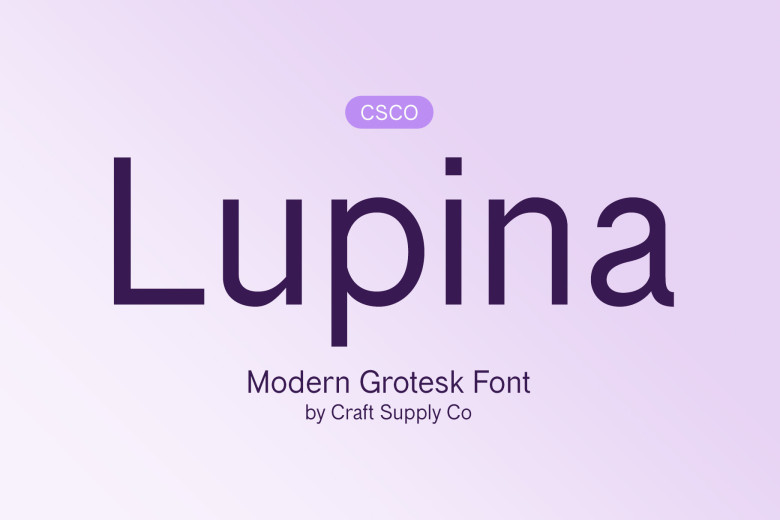
Lupina Font
Lupina strikes an elegant balance between modern sophistication and timeless simplicity. This sans-serif, grotesque font will lend any project an eye-catching modern aesthetic.
This typeface can be used for numerous applications, such as greeting cards, packaging designs, branding efforts and poster creations. Have fun playing around with it!
Lupina Sans Serif Font